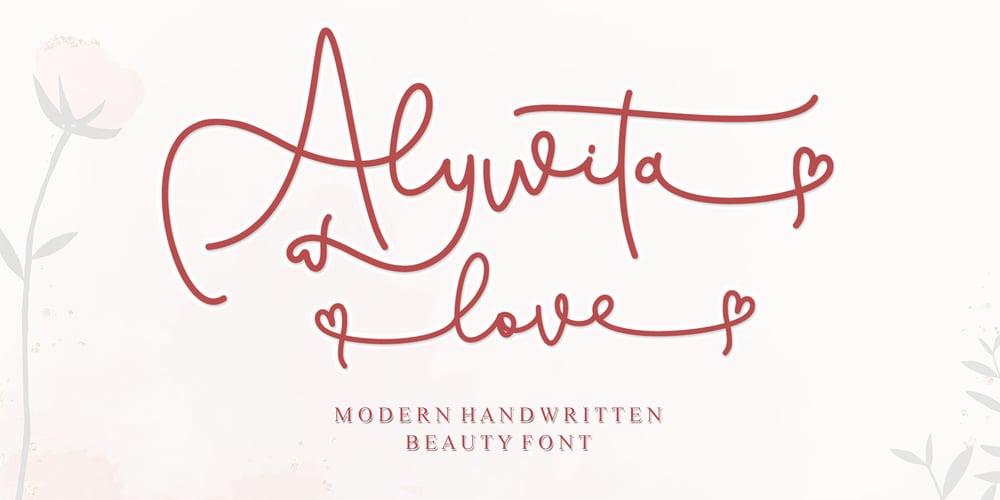
Alywita Love Font Family was designed by Ahmad Afandi and published by Letterafandi Studio. Alywita Love contains 2 styles and family package options. Alywita Love is a lovely Handwritten font with characters that dance along the baseline. It can be used for various purposes such as logos, wedding invitations, headings, t-shirts, letterhead, signage, labels, news, posters, badges and so much more.Alywita Love is PUA encoded which means you can access all of the glyphs and swashes with ease!